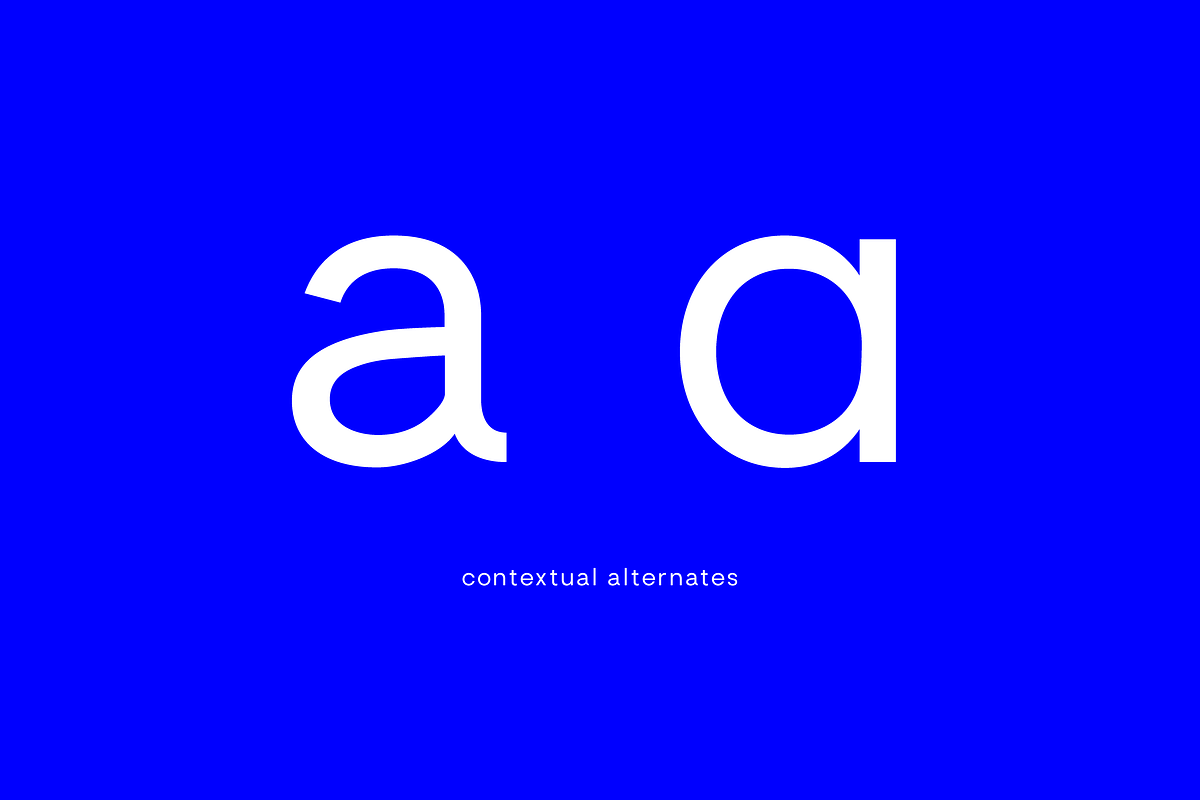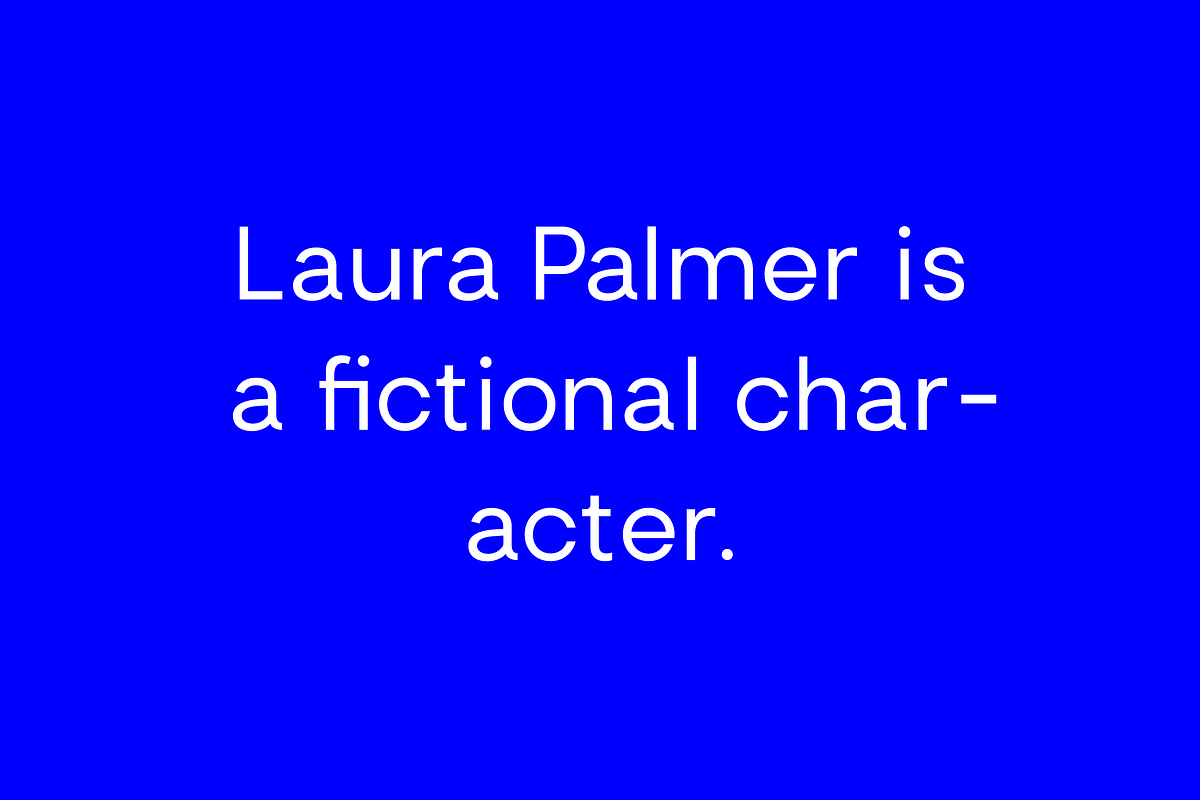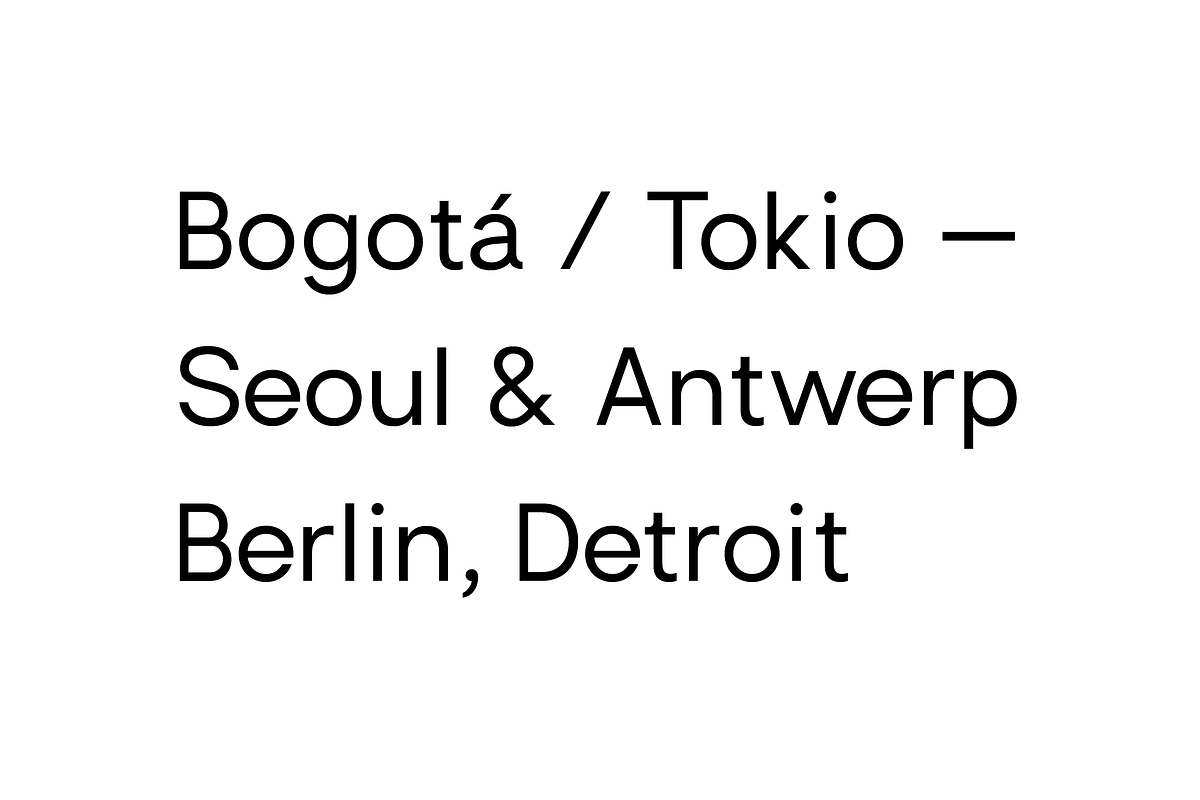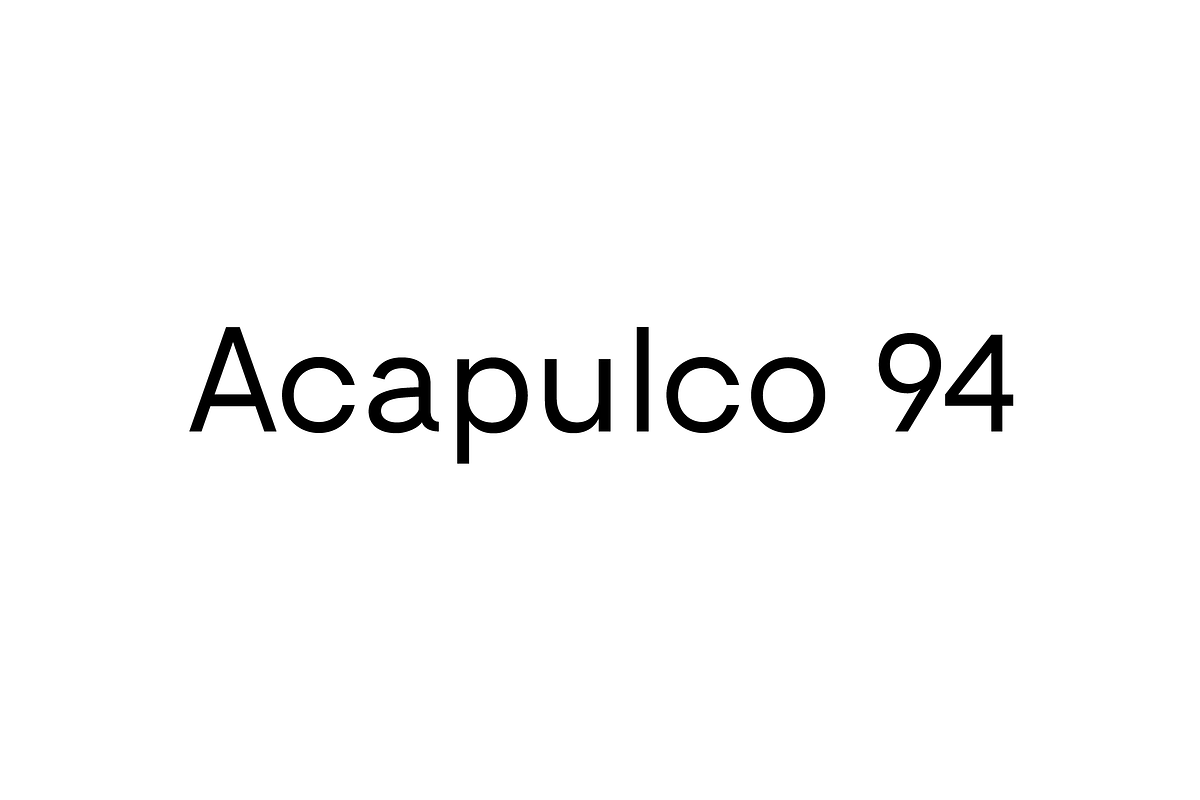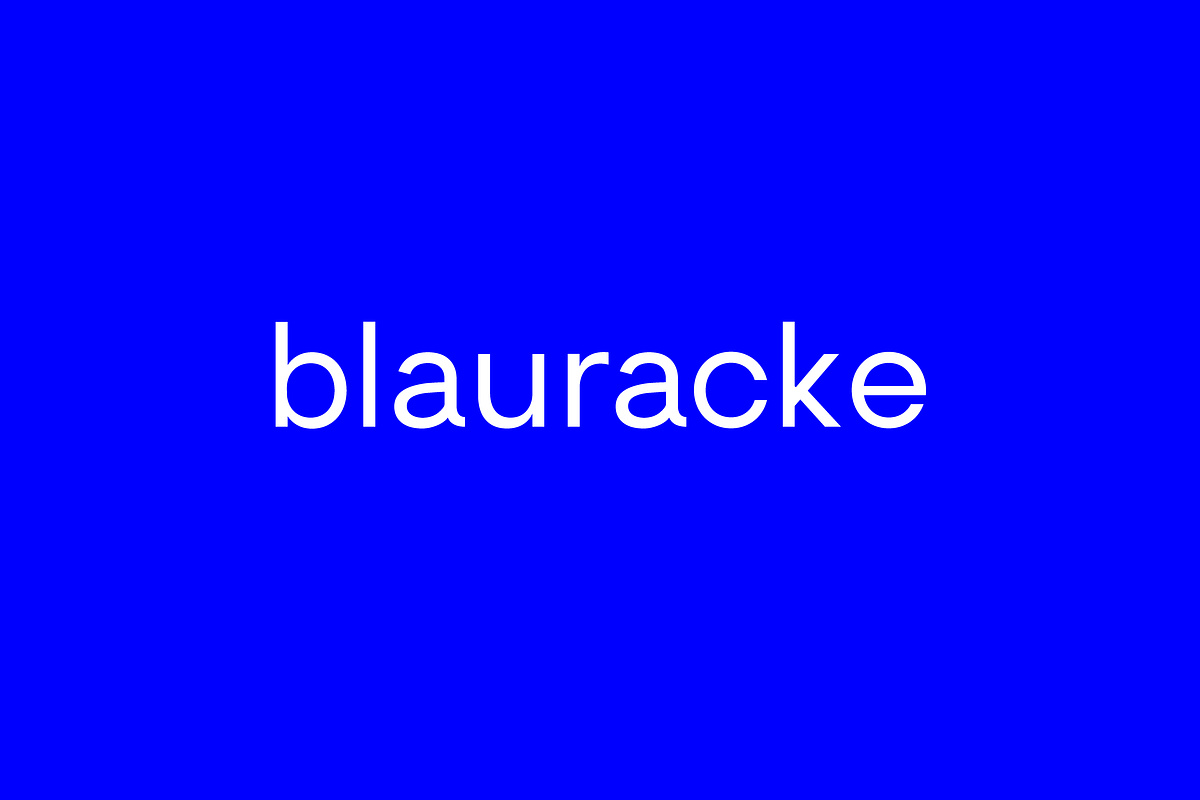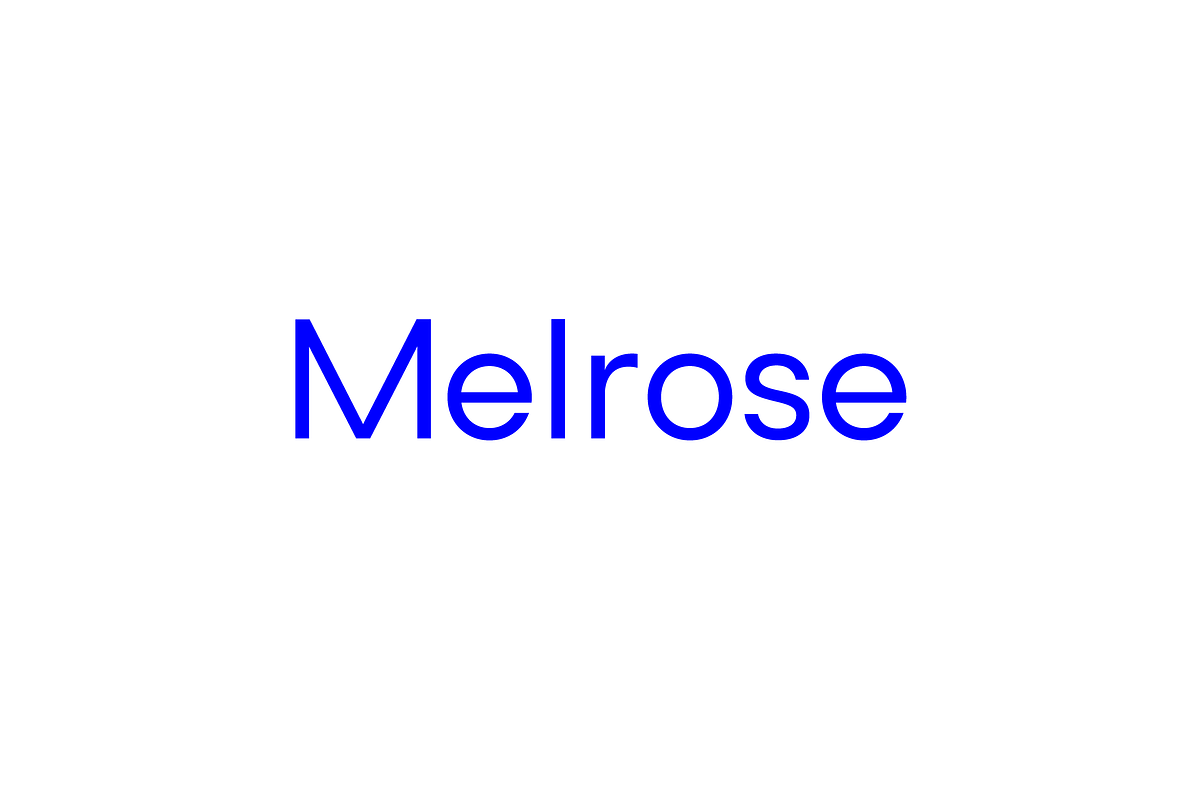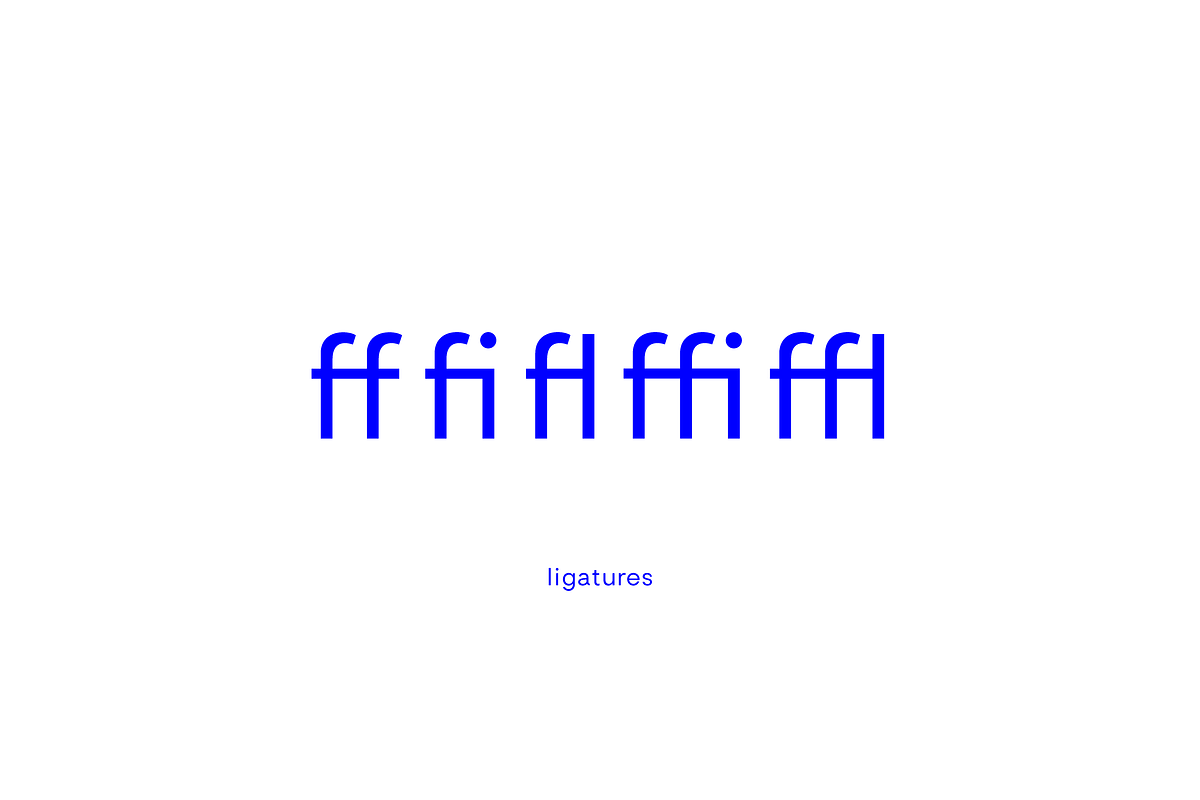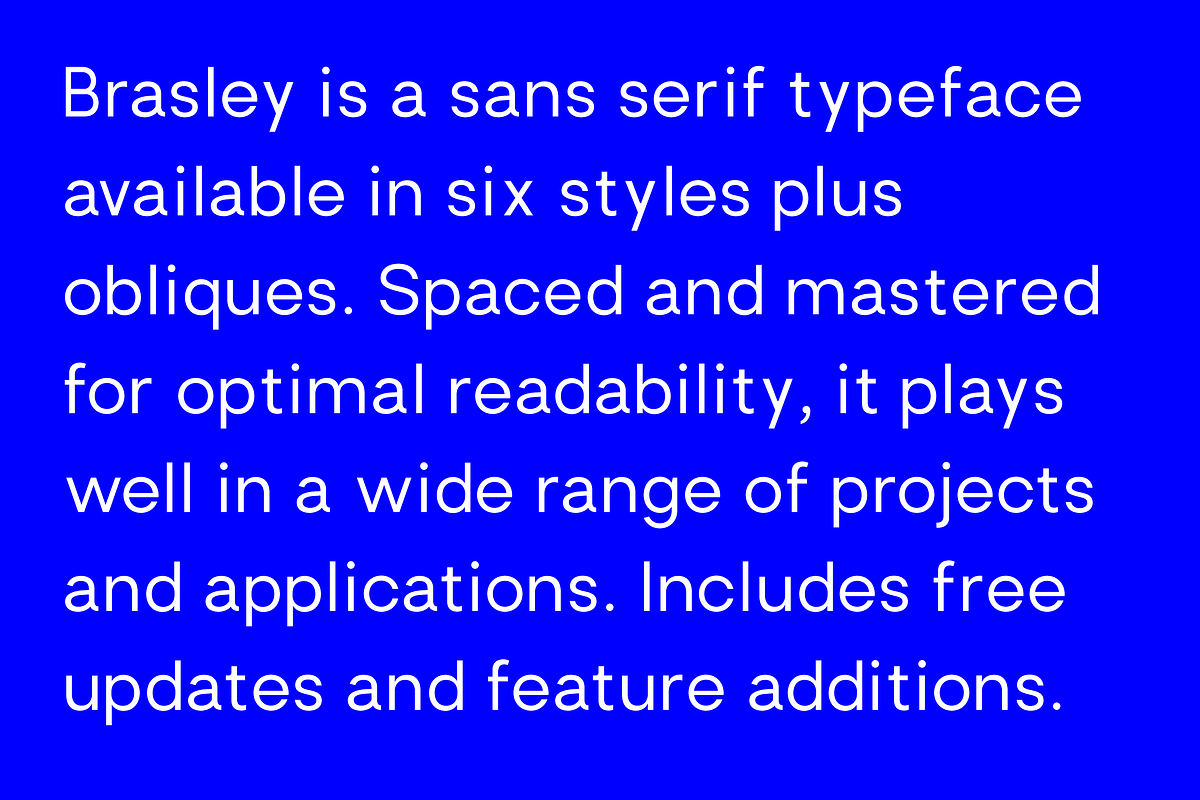
Brasley: a geometric sans family
Brasley is a geometric sans serif typeface created by Belgian designer Nicolas Desle. Spaced and mastered for optimal readability, Brasley plays well in a wide range of projects and applications.
Brasley is available in six weights—bold, semibold, medium, regular, light and thin—each with matching italics. It also includes contextual alternates, ligatures, fractions, arrows and shapes.
- Seven weights plus italics
- OpenType features, including alternates, ligatures, fractions, arrows and shapes